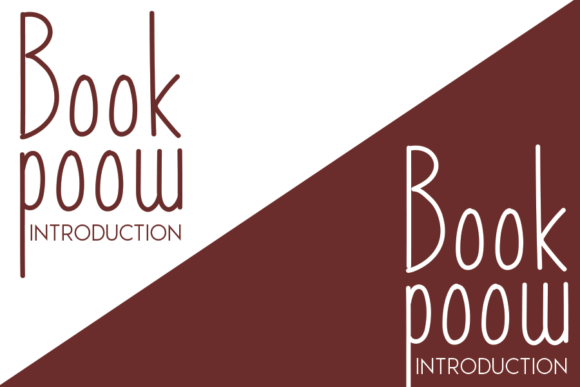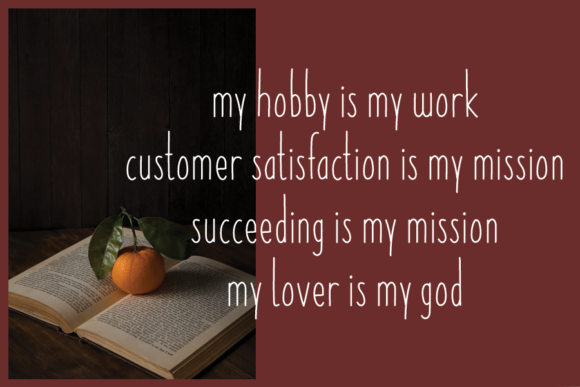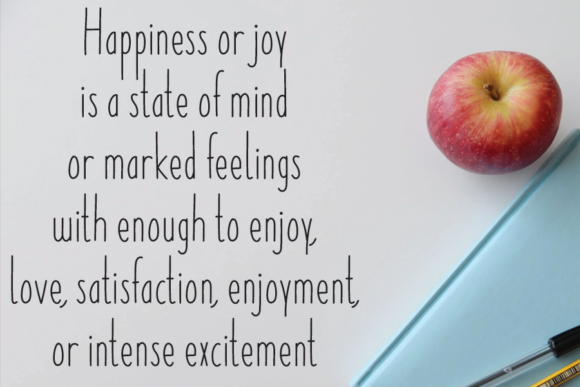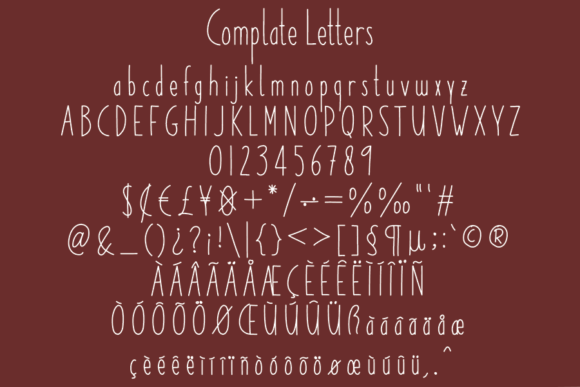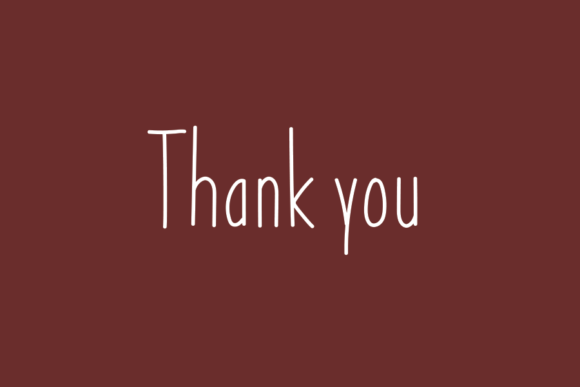
The Perfect Typography Companion: Discovering Book Poow Font
Have you ever found yourself staring at a blank page, waiting for the perfect words to flow onto the screen? As creatives, we’ve all been there – seeking that elusive combination of style and substance to bring our ideas to life. And that’s where the right font comes in – the unsung hero of our design process. For those who crave a clean and sophisticated aesthetic, Book Poow Font is a game-changer.
This minimal sans serif font is designed to elevate any design project, from editorial layouts to branding materials. Its elegant style and neat lines make it a versatile choice for various occasions, ensuring that your message is conveyed with clarity and sophistication. Whether you’re a seasoned designer or just starting out, Book Poow Font is a valuable addition to your toolkit.
Book Poow Font Key Features
- Font Family: Book Poow Font is a unique, handwritten font designed to resemble handwritten text.
- Character Count: The font contains a wide range of characters, including uppercase and lowercase letters, numbers, and special characters.
- Unique Characteristics: The font’s unique, handwritten style and subtle imperfections give it a personal and creative touch, making it ideal for design projects that require a human touch.
Book Poow Font Review
Overall, I think Book Poow Font is a decent choice for book titles or body text, but it’s not without its quirks.
- Book Poow Font has a classic, elegant feel that’s reminiscent of traditional book typography.
- The font is highly legible, making it suitable for body text or small print.
- The font supports a wide range of languages, including English, Spanish, French, and many others.
- The font can appear a bit too ornate or decorative for certain designs, which may not be suitable for modern or minimalist aesthetics.
- The font’s weight and contrast can be inconsistent, which may affect readability in certain contexts.
- The font may not be as versatile as some other fonts, limiting its use in certain design applications.
In conclusion, while Book Poow Font has its strengths and weaknesses, it’s a solid choice for projects that require a classic, elegant look. However, it may not be the best fit for every design project, and its limitations should be carefully considered.
Tips for Getting the Most Out of Book Poow Font
For optimal results, use Book Poow Font in conjunction with a high-quality image or background.
Combine Book Poow Font with other design elements to create a visually appealing design.
Book Poow Font is ideal for:
Book covers and book titles
Editorial and publishing designs
Any design project requiring a classic, elegant font
Playfair Display is more ornate and luxurious compared to Book Poow Font, which has a more classic and timeless feel. While Book Poow Font is great for body text, Playfair Display is better suited for headlines and titles.
Merriweather is more classic and traditional compared to Book Poow Font, which has a more modern feel. While Book Poow Font is great for modern and minimalist designs, Merriweather is better suited for projects that require a sense of tradition and history.